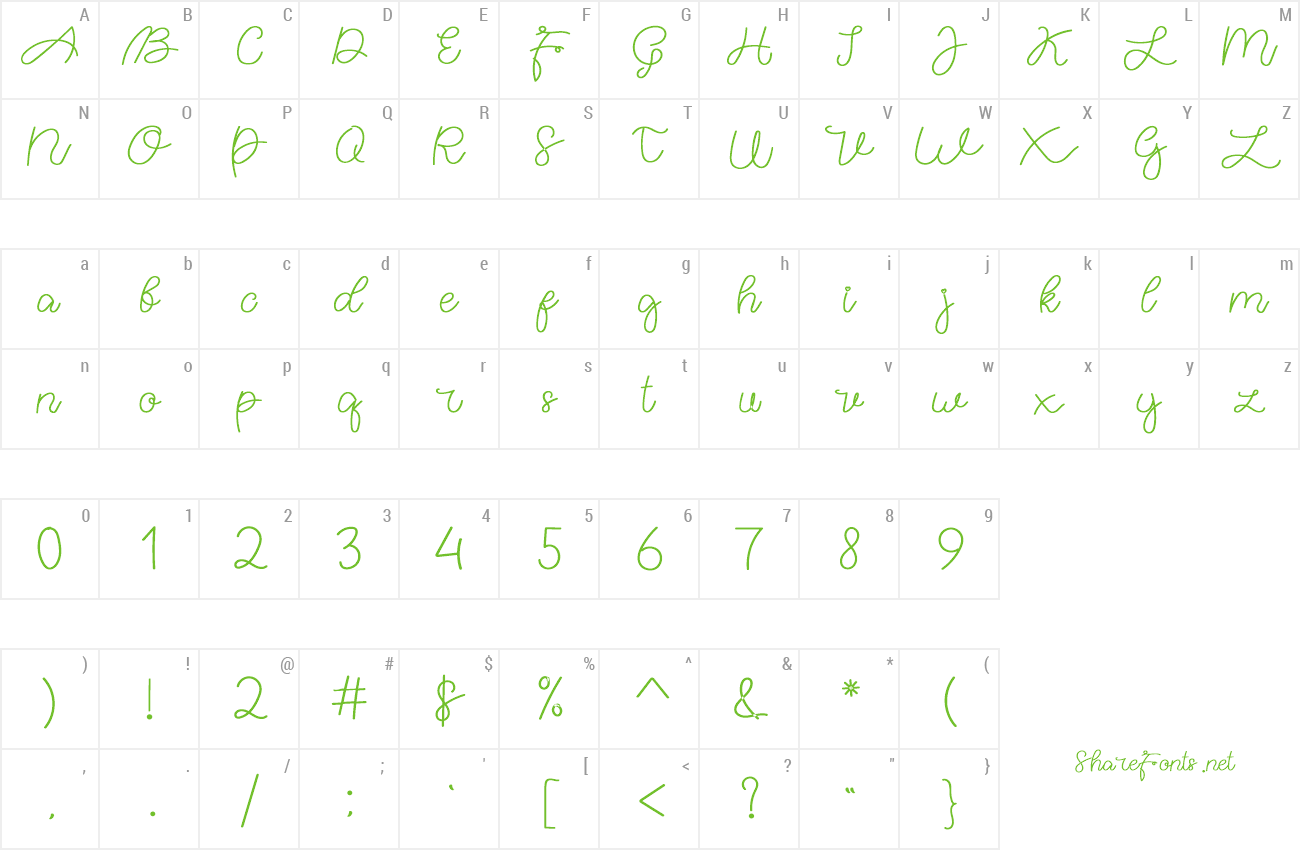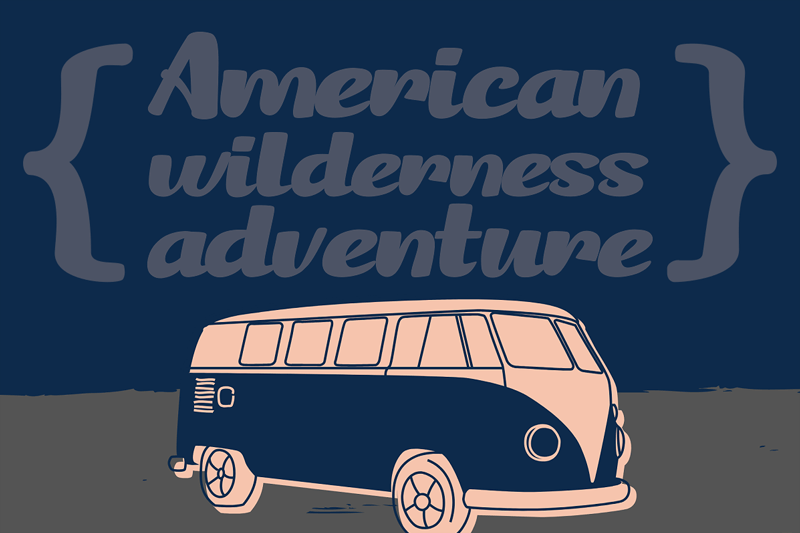
Free and Premium Quality Fonts - Best Premium FontsVolkswagen is a big and famous car company. Volkswagen font family since 1997 volkswagen has been working with a custom designed version of the famous futura typeface evolved by way of erik spiekermann and luc de groot. And it wont only be featured in the brands stationery and brochures it will be found on every new vws dashboard center stack and infotainment system as well.
volkswagen script fontlettering volkswagen script font
Are trying pairing it with a more squat daring subhead font and youll create something that stands out.
Their company name now becomes a brand that is the most vital asset for every business. Download volkswagen medium font free. A handwritten display font fine for developing an awfully normal influence to your poster designs as is of your favorite writing instrument. Volkswagen serial bold altsvolkswagen serial bold 1.
Volkswagen extra bold is an otf with extra bold style available for mac pcits character set contain lower uppercase alphabets and numbersthis font family have 14 variants as follows. The visual look of the cars has evolved ever considering that and the practical requirements inside the distinct person fields have increased. Volkswagen extraboldita volkswagen extrabold volkswagen demiboldita volkswagen demibold volkswagen boldita volkswagen bold volkswagen regularita volkswagen.